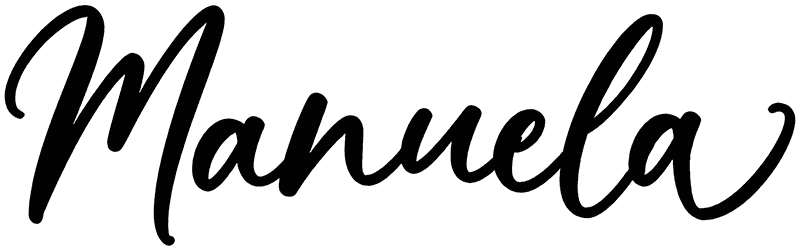
Awesome Script Font
You can adorn the words of your novel design with this script font if it needs a natural and urban vibe. The Awesome Script font has captivating, bold, and cursive visuals that could be perfect for varied informal projects, like a skateboard design. Give this handwritten font a chance and test it for your next showcase to see how unique it will be.